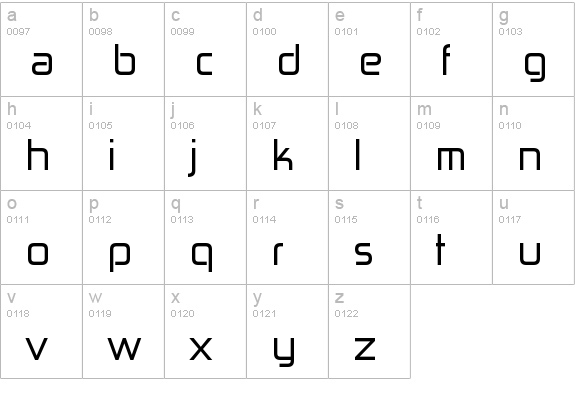
Zekton Free Font Details
Zekton Free is a modern and stylish sans-serif typeface that exudes a sleek and professional aesthetic. With its clean lines and geometric shapes, this font is perfect for a wide range of design projects, from branding and advertising to web design and print materials. Zekton Free offers a perfect balance between readability and visual impact, making it an excellent choice for both headlines and body text. What sets Zekton Free apart is not only its striking appearance but also the fact that it is available as a free download. Designers and creatives can easily access this high-quality font at FontsMarket.com without any cost, allowing them to elevate their projects without breaking the bank. Whether you're working on a personal project or a client assignment, Zekton Free provides a professional and polished look that will make your designs stand out. Download Zekton Free today and add a touch of sophistication to your next creative endeavor.